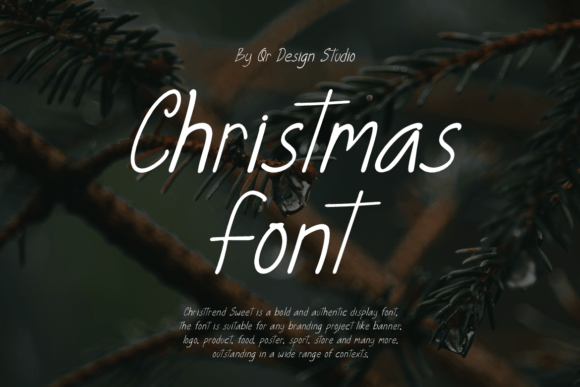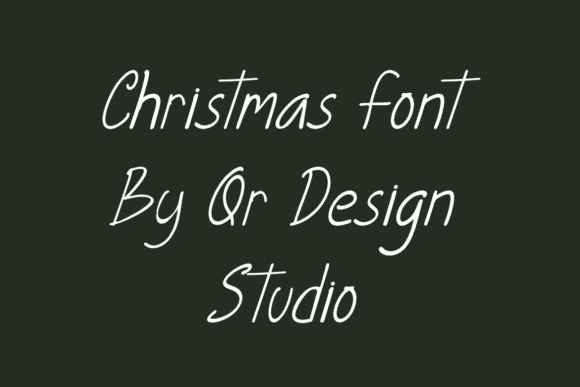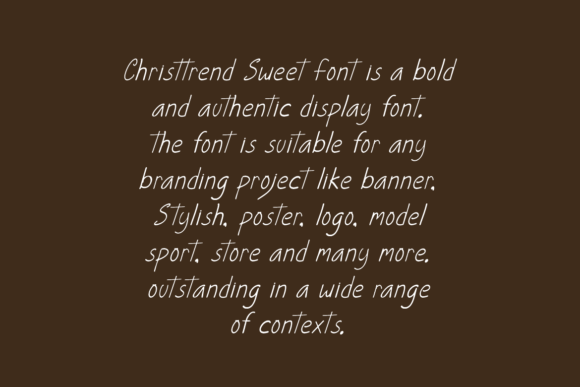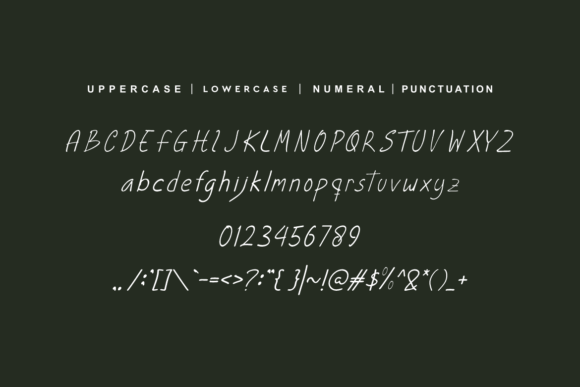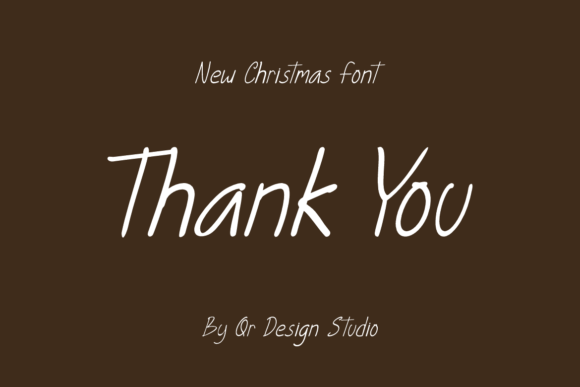
Introducing Christtrend Sweet Font: The Sweetest Addition to Your Design Arsenal
Are you tired of using the same old fonts in your designs? Look no further! Christtrend Sweet Font is here to add a touch of sweetness and friendliness to your creations. This beautiful handwritten font is perfect for designers and crafters who want to add a personal touch to their work.
What Makes Christtrend Sweet Font So Special?
Christtrend Sweet is a sweet and friendly handwritten font that boasts a natural and unique style. Its distinctive charm makes it incredibly fitting for a wide range of designs, from playful and whimsical to elegant and sophisticated. The only limit to what you can create with Christtrend Sweet Font is your imagination!
Key Features of Christtrend Sweet Font
- Handwritten style: Christtrend Sweet Font has a beautiful, handwritten style that adds a personal touch to any design.
- Natural and unique: The font’s natural and unique style makes it stand out from more traditional fonts.
- Versatile: Christtrend Sweet Font is incredibly versatile and can be used in a wide range of designs, from digital projects to print materials.
- Easy to read: Despite its playful style, Christtrend Sweet Font is easy to read, making it perfect for body text and headings.
Christtrend Sweet Font is a dream come true for designers and crafters who want to add a touch of personality to their work. Whether you’re creating:
- Digital products: Use Christtrend Sweet Font to add a personal touch to your digital products, such as planners, journals, and printable art.
- Print materials: Christtrend Sweet Font is perfect for print materials, such as business cards, brochures, and posters.
- Crafting projects: Add a touch of sweetness to your crafting projects, such as handmade cards, scrapbooking, and DIY decor.
Tips for Using Christtrend Sweet Font
Here are some tips for getting the most out of Christtrend Sweet Font:
- Pair with bold fonts: Pair Christtrend Sweet Font with bold fonts for a striking contrast.
- Use in headings and titles: Use Christtrend Sweet Font in headings and titles to add a touch of personality to your designs.
- Experiment with colors: Christtrend Sweet Font looks great in a range of colors, from bright and bold to soft and pastel.